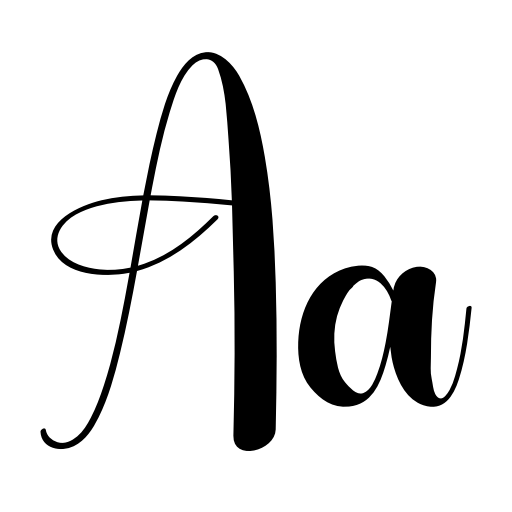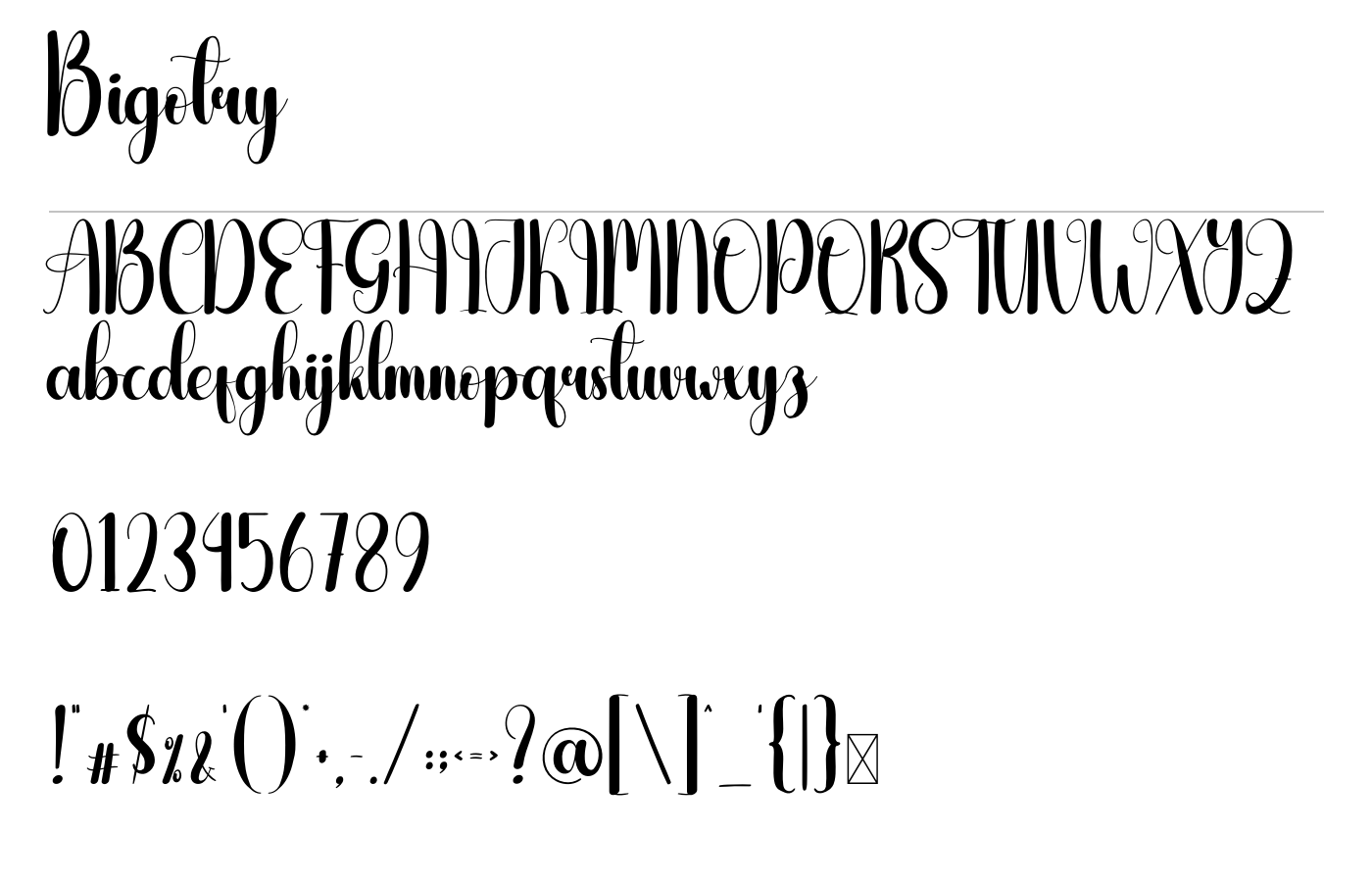
Bigotry is an elegant and playful script font featuring tall, narrow letterforms with high contrast between thick and thin strokes. Its delicate swirls and flourishes give it a romantic, handcrafted feel, making it perfect for invitations, branding, and decorative headlines where a touch of sophistication and charm is desired. This font works especially well in fashion, beauty, and creative projects that need an eye-catching, stylish look.
Bigotry Font
About Bigotry Font